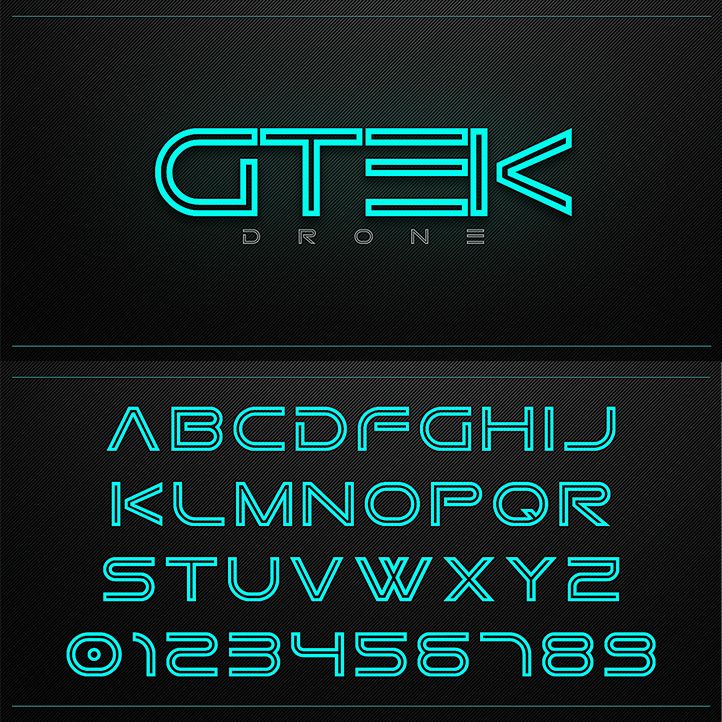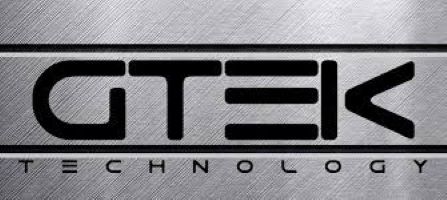
Gtek Technology Font
Gtek Technology Font is renowned for its classic appearance. It is commonly used in designs such as architect font and beyond, giving the content a modern and fresh look.
Style Of Gtek Technology Font Free